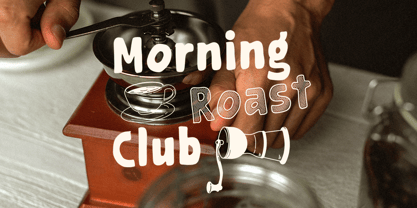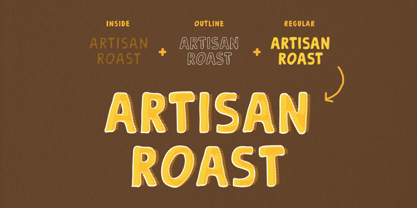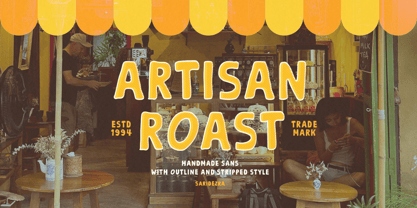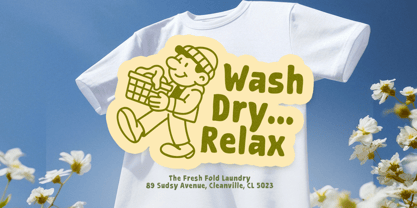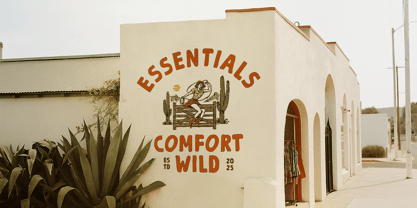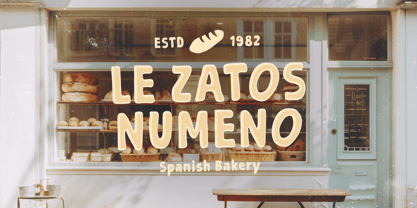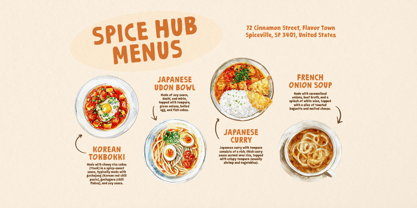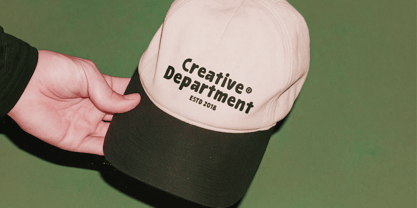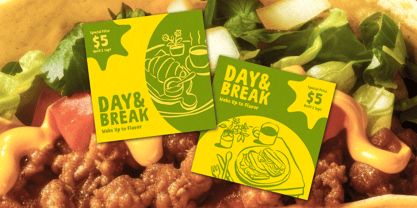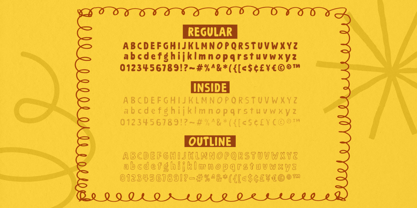
Artisan Roast
by Sarid Ezra
Artisan Roast is a handcrafted sans-serif font available in three unique styles: Inside, Outline, and Regular. These styles can be layered to create eye-catching, stylish effects that add depth and creativity to your designs. Perfect for a variety of uses such as logotypes, quotes, branding, packaging, and other projects that require a warm, human, and organic touch, this versatile font brings a personal feel to any work. Additionally, Artisan Roast supports multiple languages, making it a great choice for both local and international design needs.